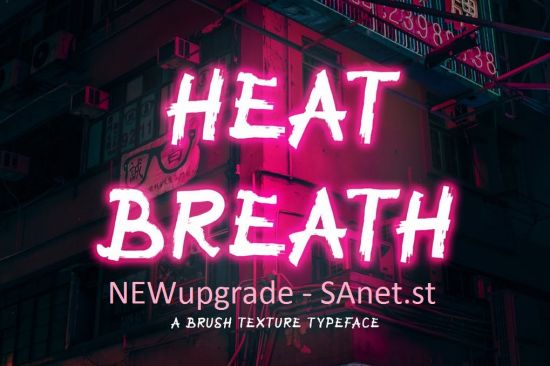
Are you looking for a simple masculine handbrush font? We can help! Try to download our Heat Breath font. Try to use it on Wedding invitation, photography, branding, poster, quote, signature and many more to see the best of it :)